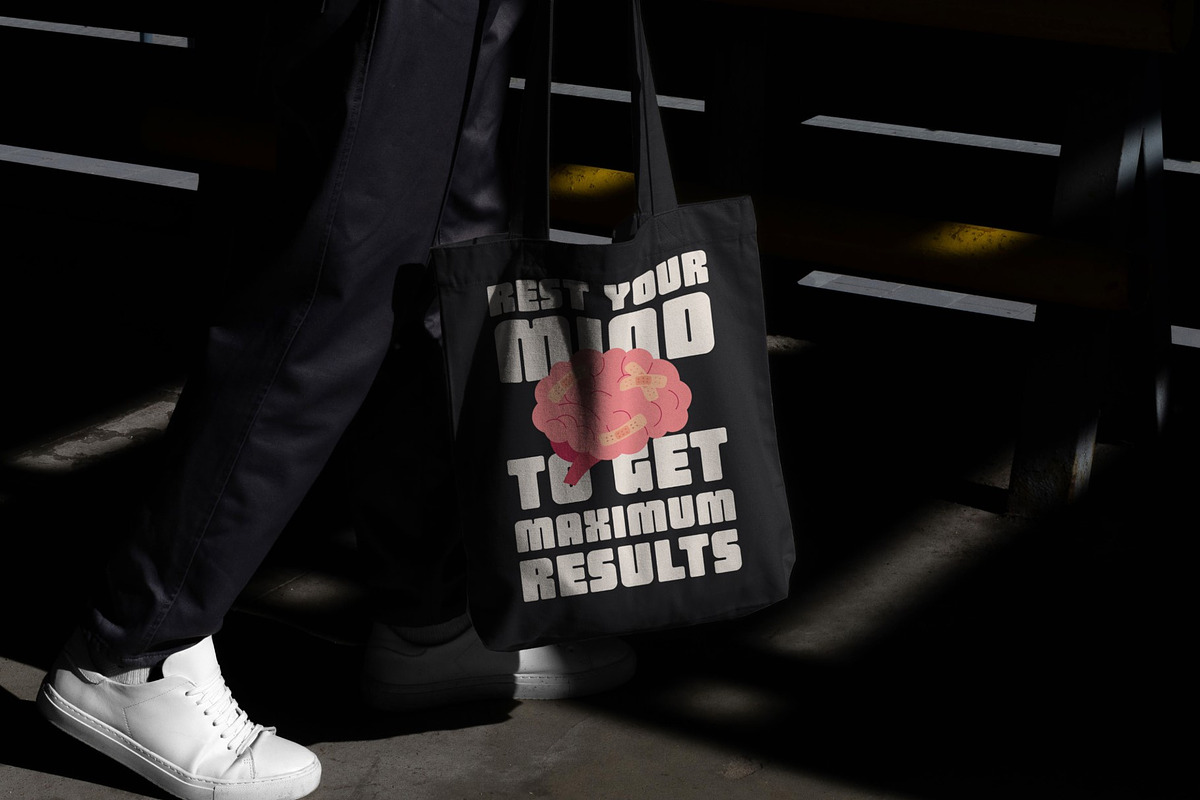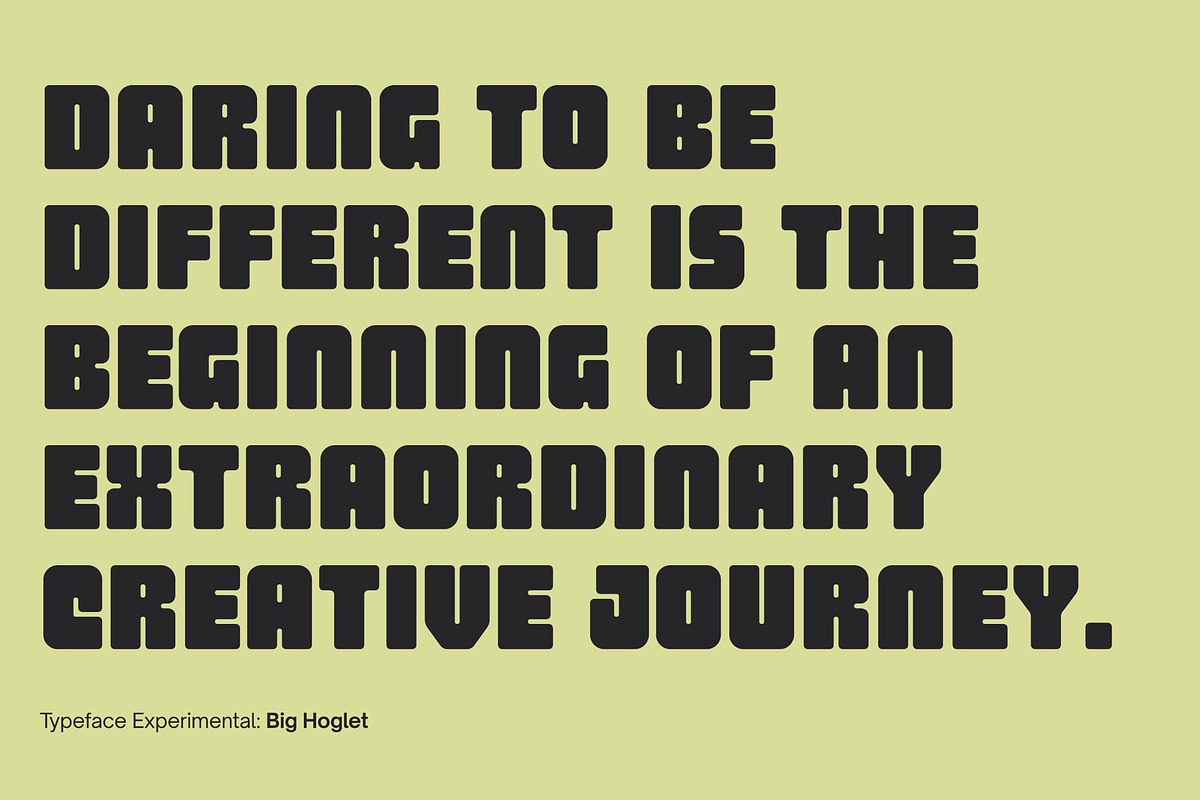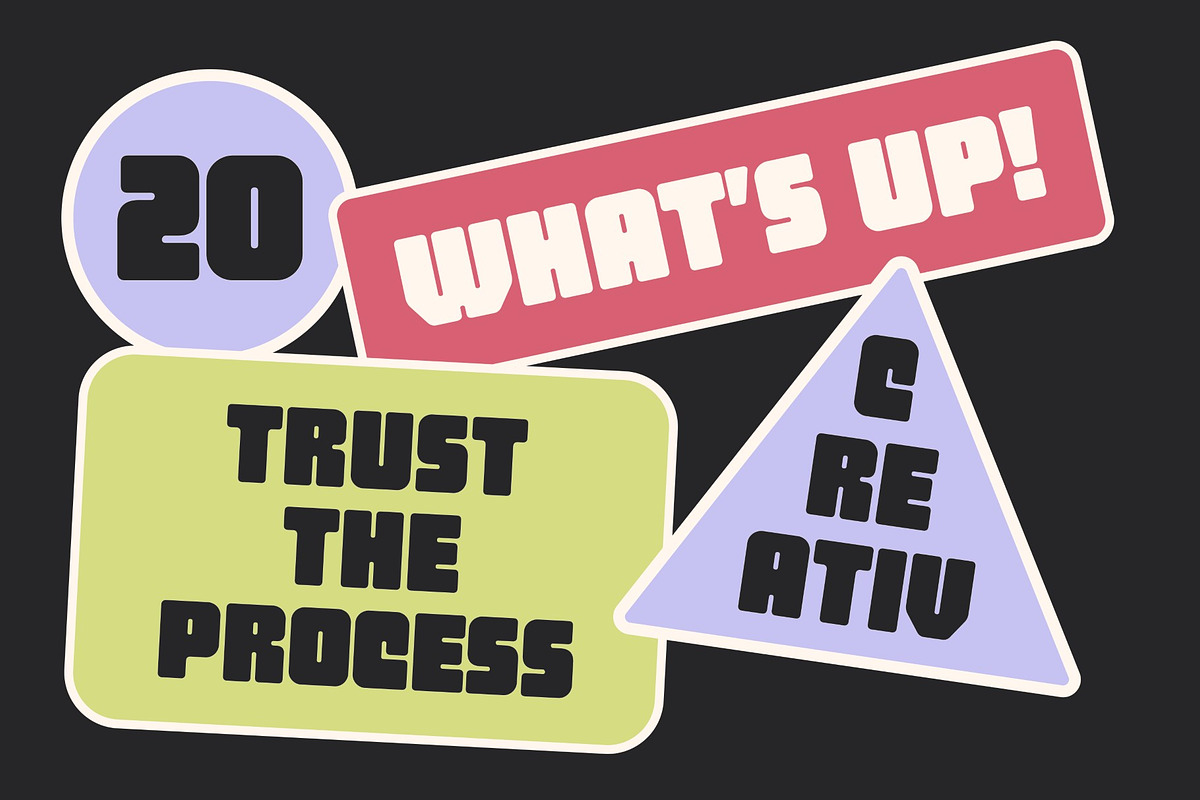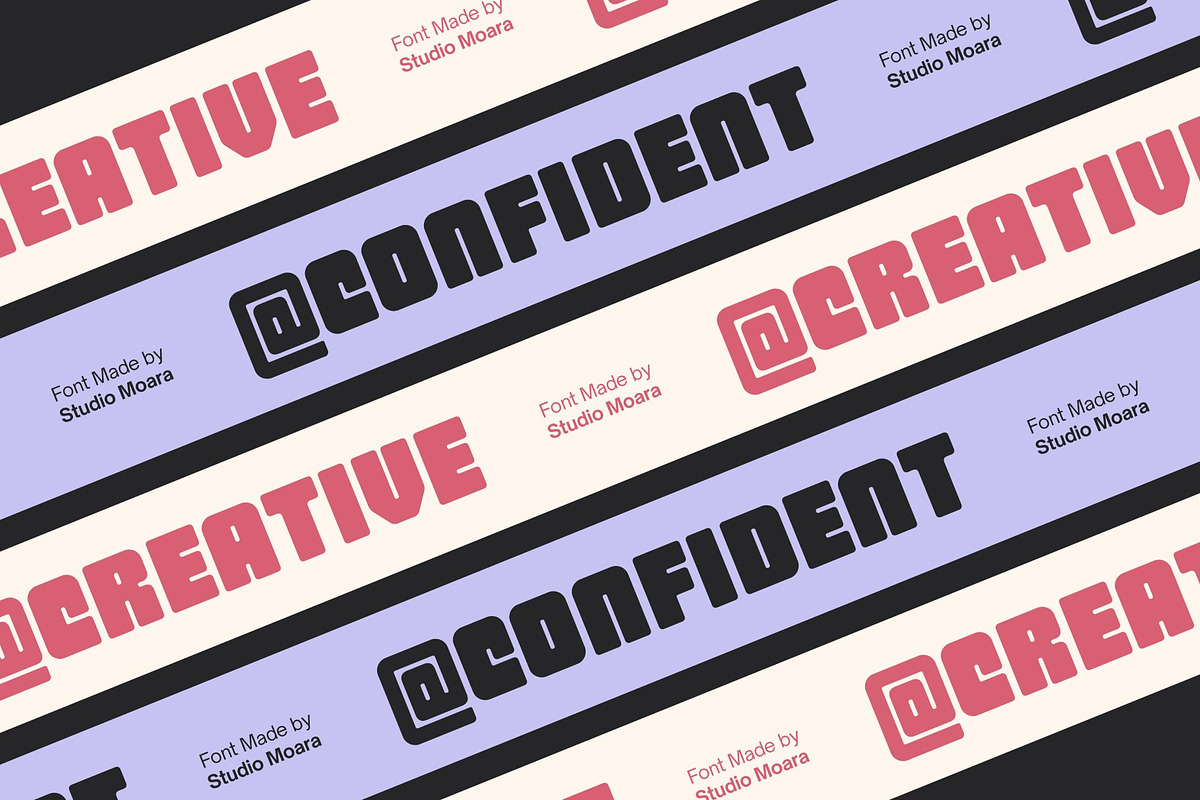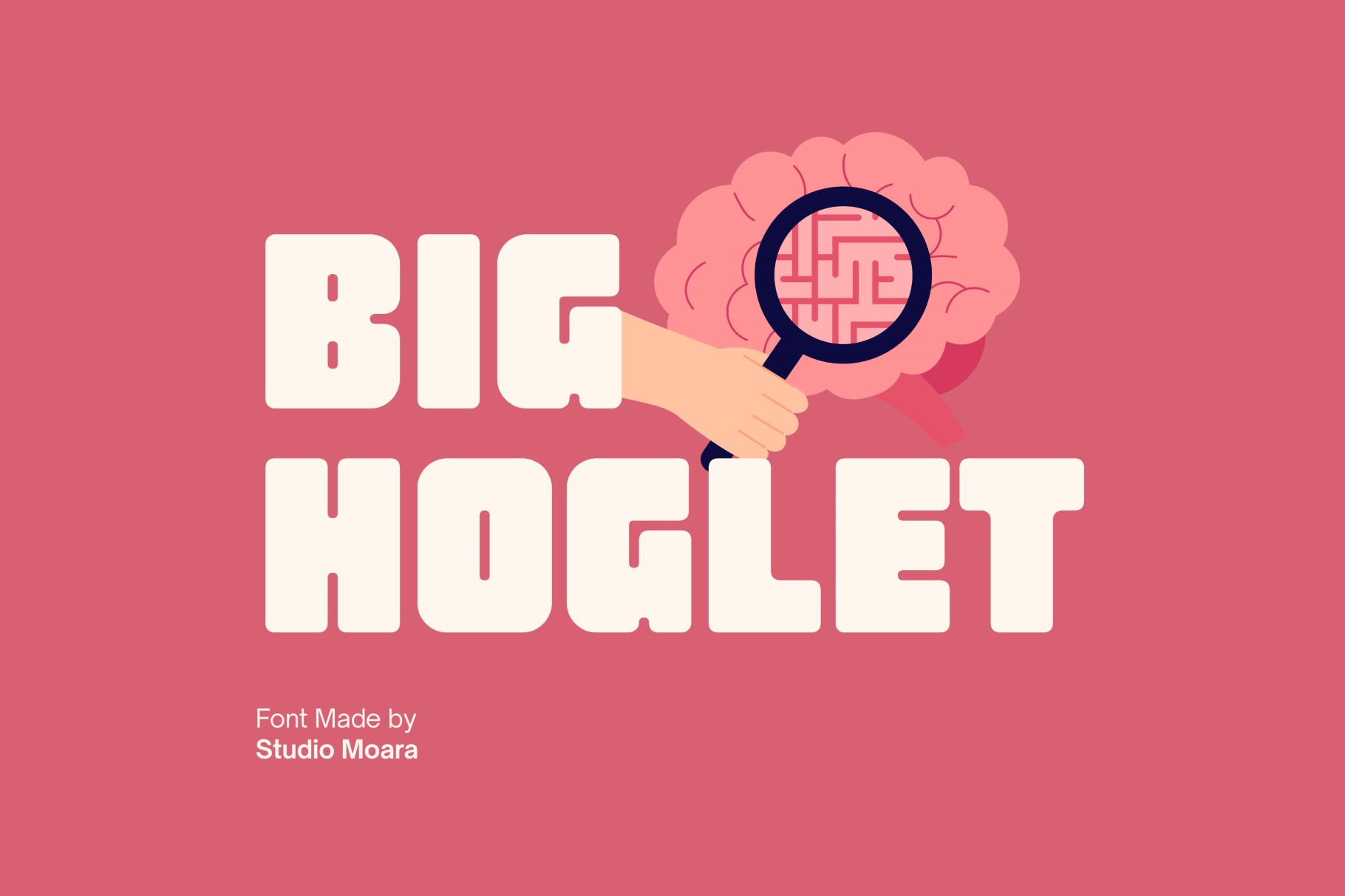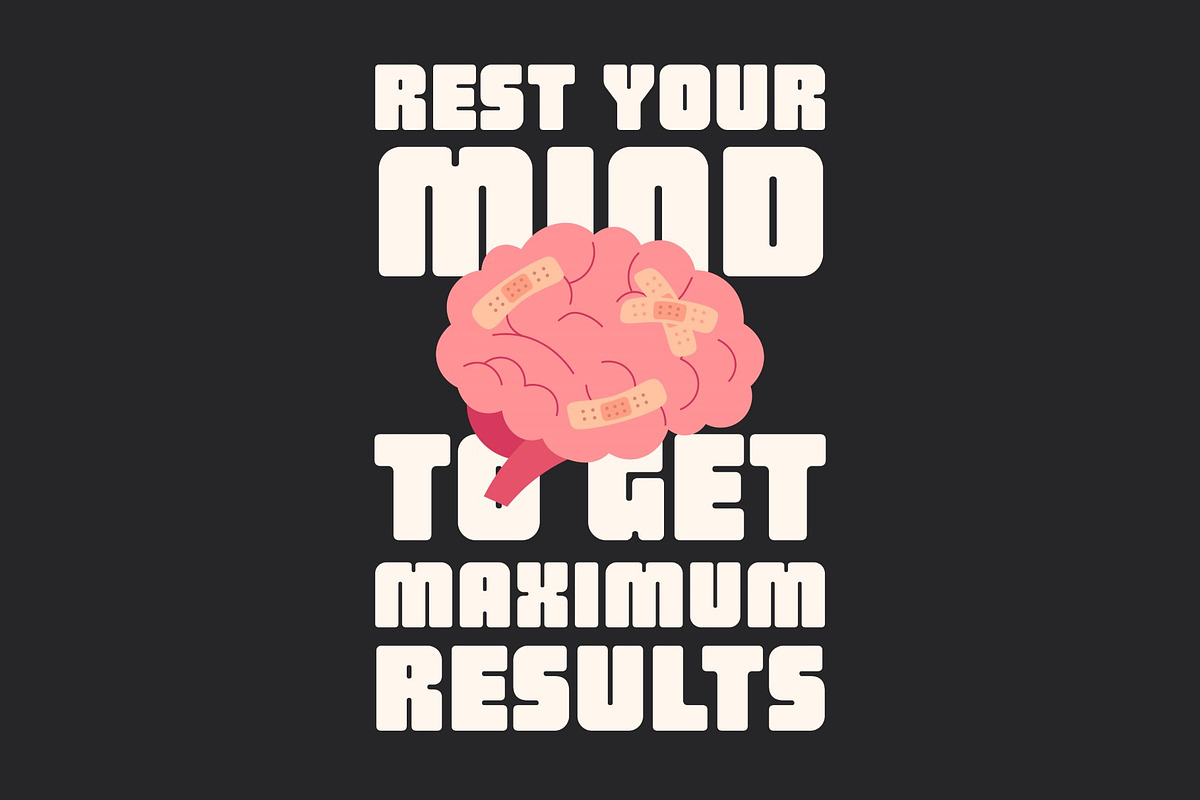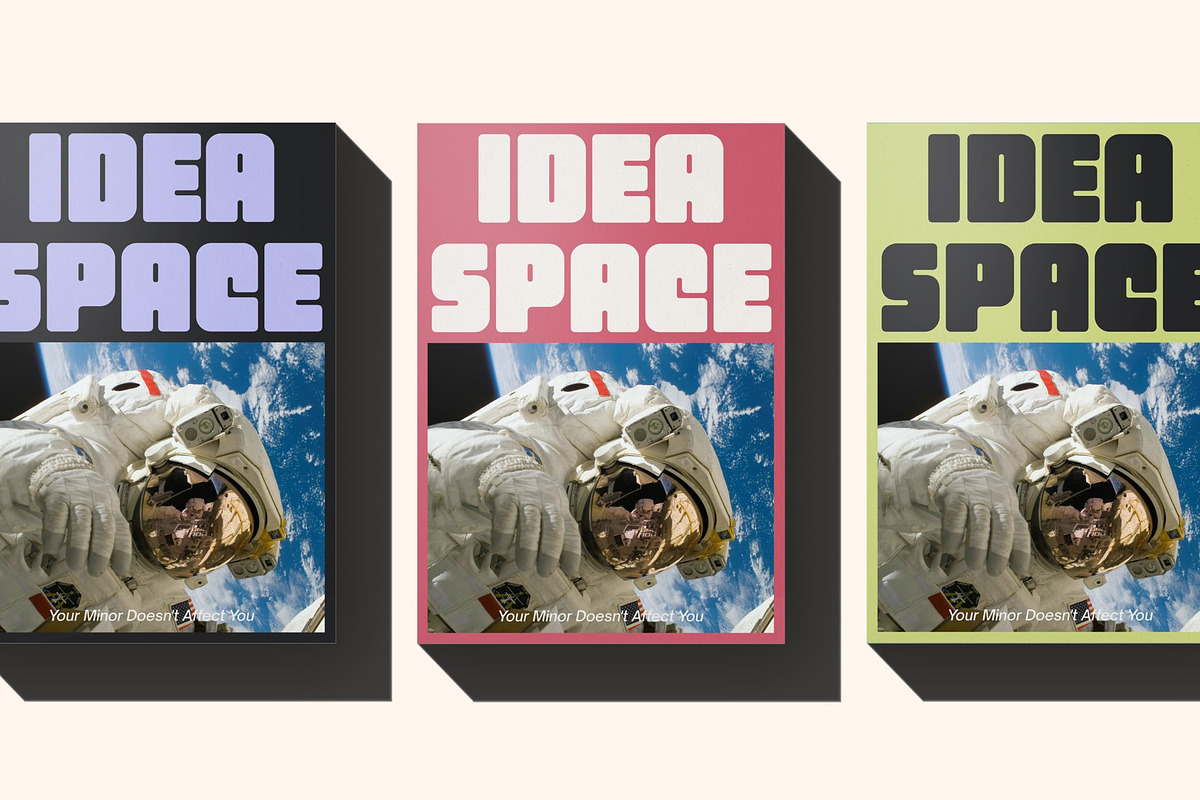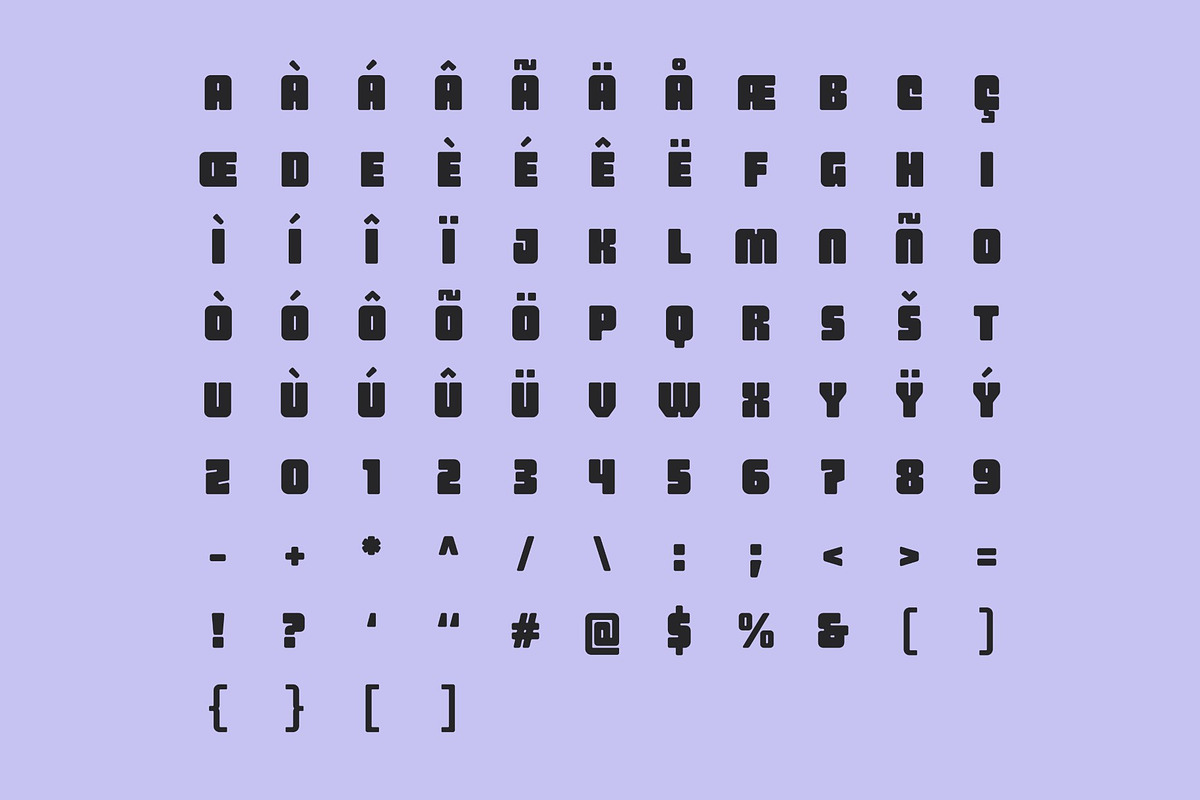
Big Hoglet - Retro Chunky Font
Introducing Big Hoglet - Retro Chunky Font, a bold and playful typeface that brings a nostalgic vibe to your designs. Perfect for eye-catching headlines, logos, and posters, this font combines retro charm with a modern twist. Its thick, chunky letters ensure your text stands out and captures attention. Ideal for creative projects that need a touch of fun and originality, Big Hoglet is your go-to font for making a statement.